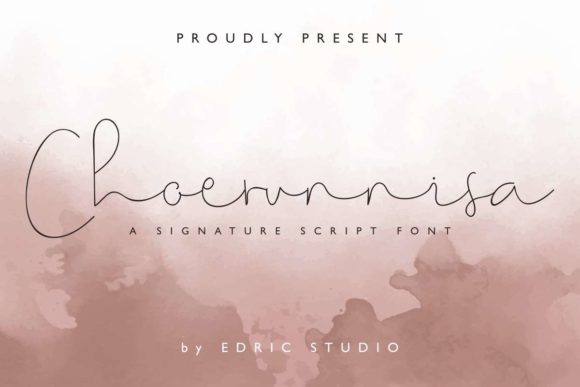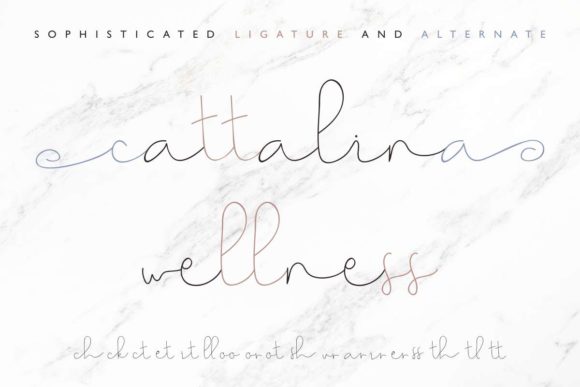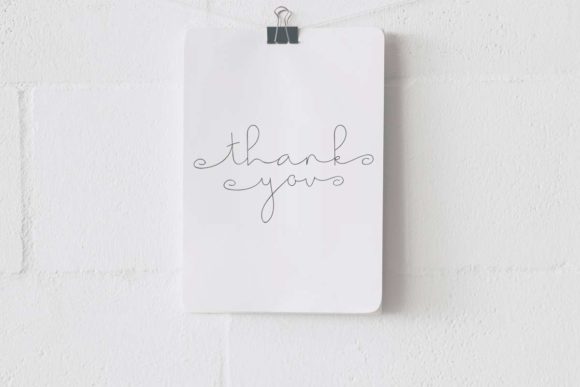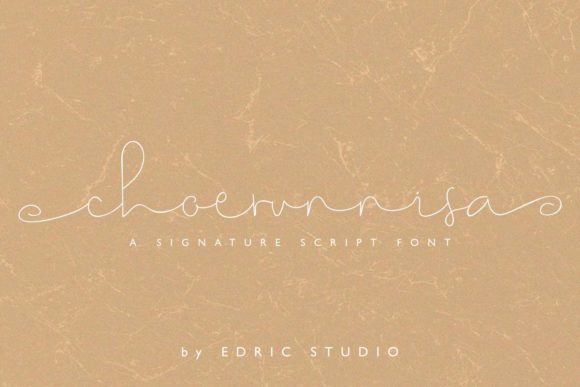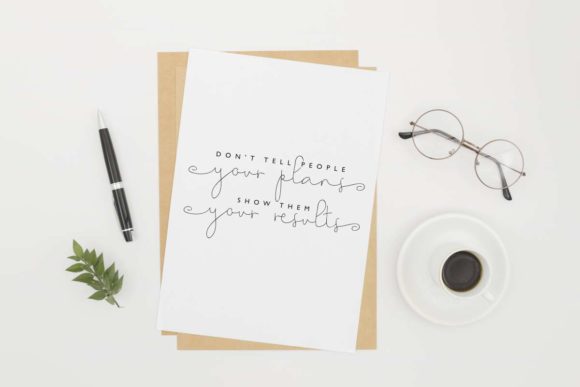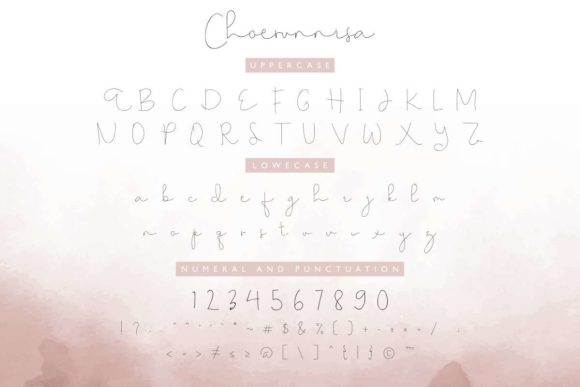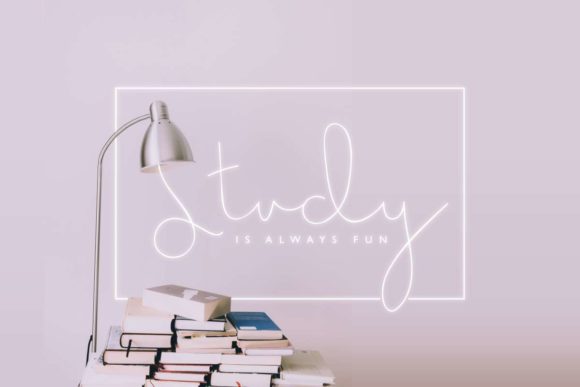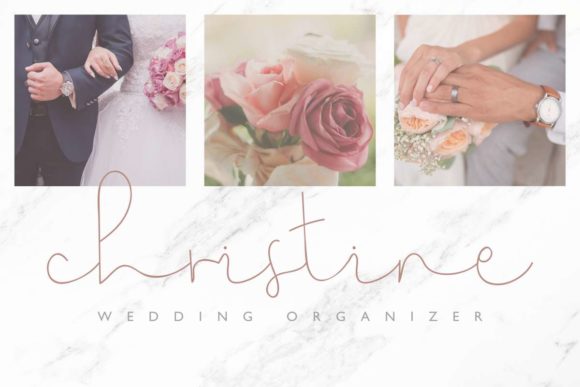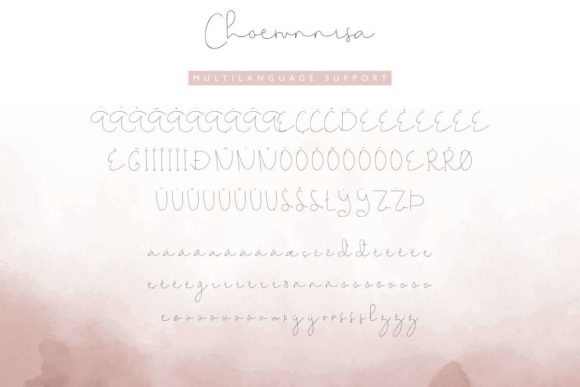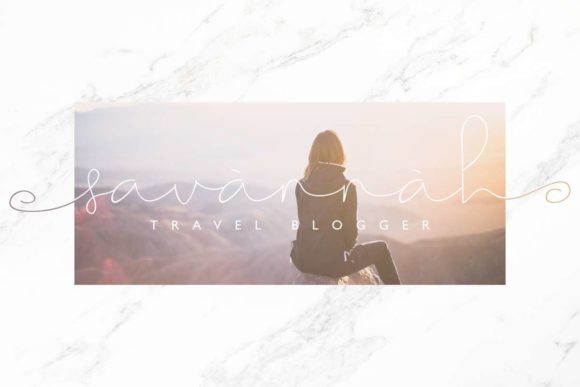
HomeScript FontsChoerunnisa Font Script Fonts Choerunnisa Font FacebookXPinterestWhatsApp Choerunnisa Font Poster 2 Choerunnisa Font Poster 3 Choerunnisa Font Poster 4 Choerunnisa Font Poster 5 Choerunnisa Font Poster 6 Choerunnisa Font Poster 7 Choerunnisa Font Poster 8 Choerunnisa Font Poster 9 Choerunnisa Font Poster 10 Choerunnisa Font Poster 11 About Choerunnisa Font Choerunnisa is a lighthearted and sweet script featuring modern letters. Get inspired by its unique charm! DOWNLOAD ON CREATIVE FABRICAThis font is sold and delivered by Creative Fabrica. Font Canyon may earn a commission if you buy through this link. People also explored Monttier Font Hello Alexandria Font Autumn Leaf Play Font Secret Admirer Font Kathy Perry Font Season Holidays Font Trio Lilyna Garden Monogram Font Rainy Love Font Panorama Font 340 0 TagsChoerunnisa Font Previous articleChameeta FontNext articleZephira Font LEAVE A REPLY Cancel reply Comment: Please enter your comment! Name:* Please enter your name here Email:* You have entered an incorrect email address! Please enter your email address here Website: Save my name, email, and website in this browser for the next time I comment. Personal Use Free Tomatoes Personal Use Free Read more about this font Crack Man Personal Use Free Read more about this font Capellen Personal Use Free Read more about this font Summer Pisces Personal Use Free Read more about this font BLOG To increase your work productivity, choose the most readable fonts. In today's fast-paced work environment, where digital communication and information consumption are integral to our daily routines, the choice of fonts can significantly impact... Top 7 Google Fonts Alternatives for Faster and Privacy-Friendly Web Design (2025) Best Fonts for YouTube Videos: Make Your Thumbnails Stand Out How to Cut Any Font on Cricut: Convert a Font to SVG (Free)